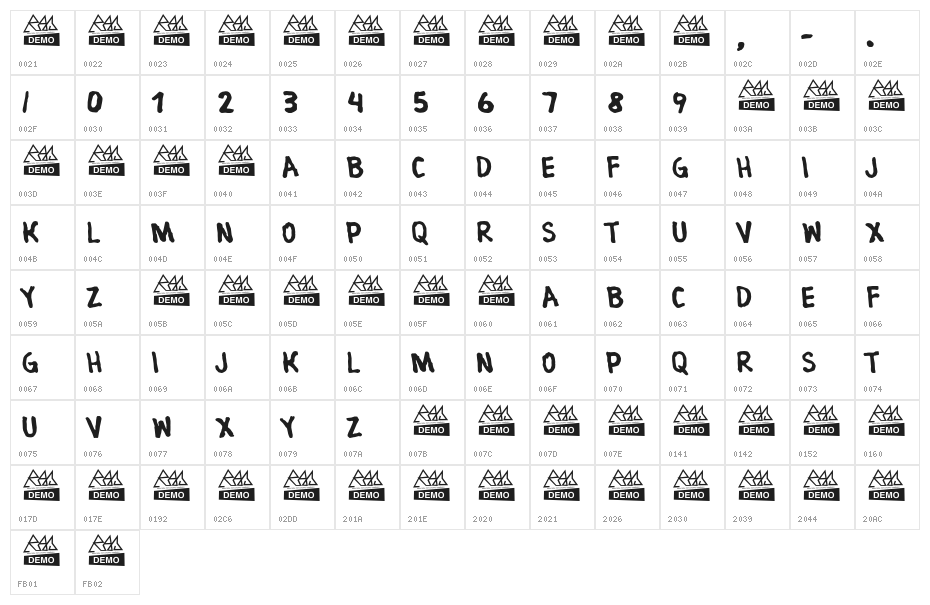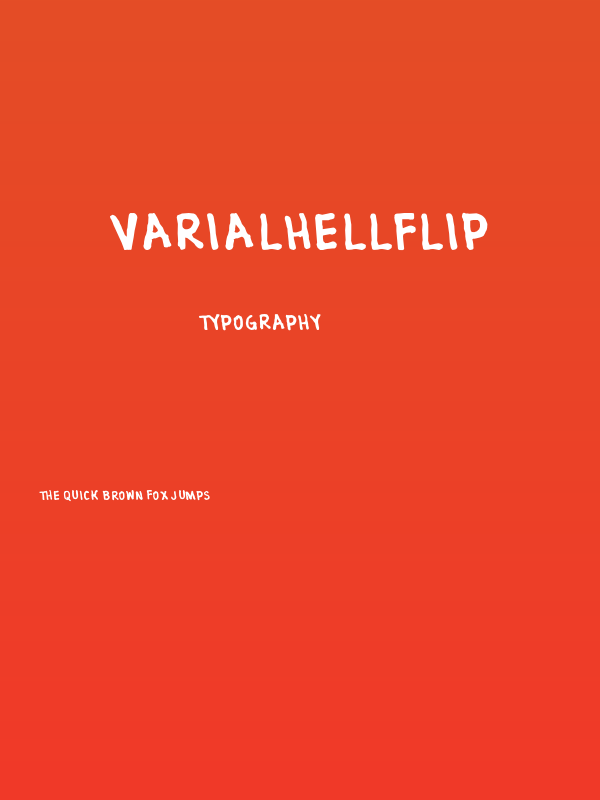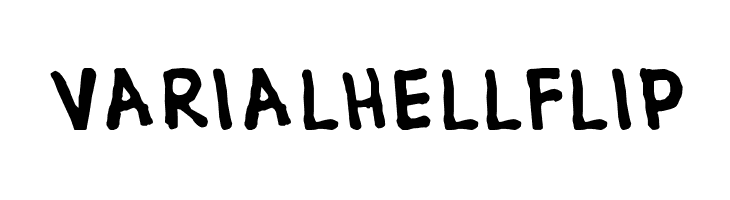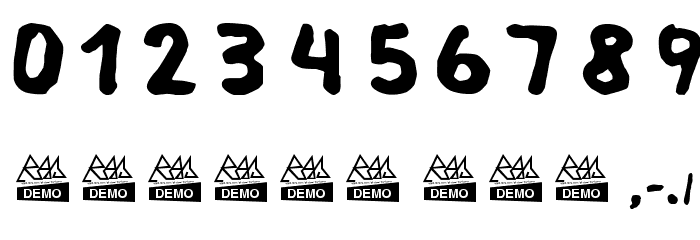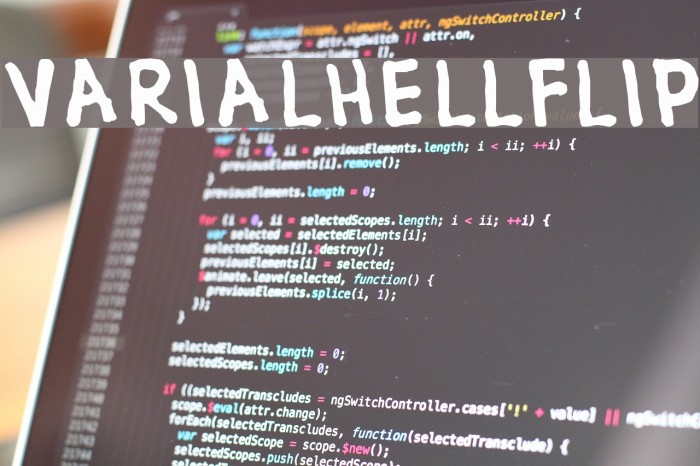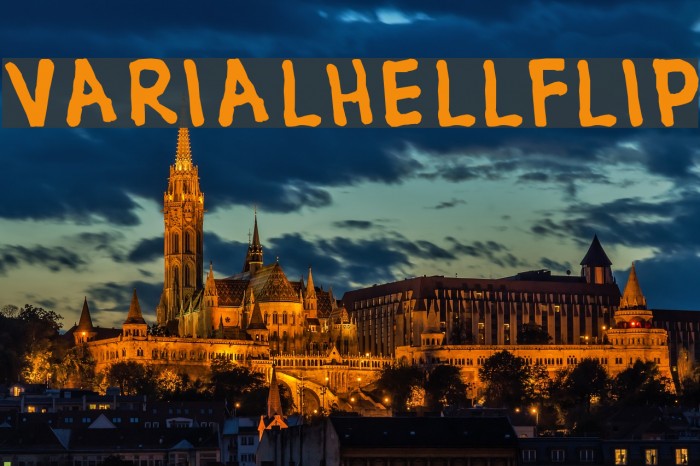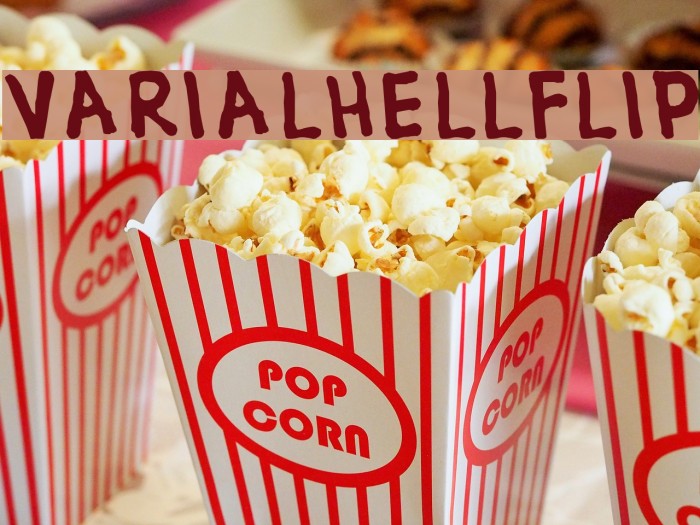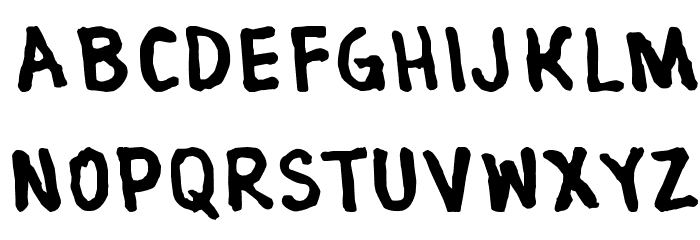
VARIALHELLFLIP Font
✎ Comic
VARIALHELLFLIP Description
This font features a bold, hand-drawn style with a playful and slightly irregular appearance. The characters are thick and have a rough, textured edge, giving them a casual and informal look. The uppercase letters are prominent and slightly uneven, while the lowercase letters maintain the same playful aesthetic. Numbers are consistent with the overall style, and special characters are included, adding versatility. The font's unique character makes it suitable for creative and artistic projects, offering a distinctive and eye-catching appearance.
| Proposed Projects | Ideal for posters, children's books, creative branding, and artistic designs. |